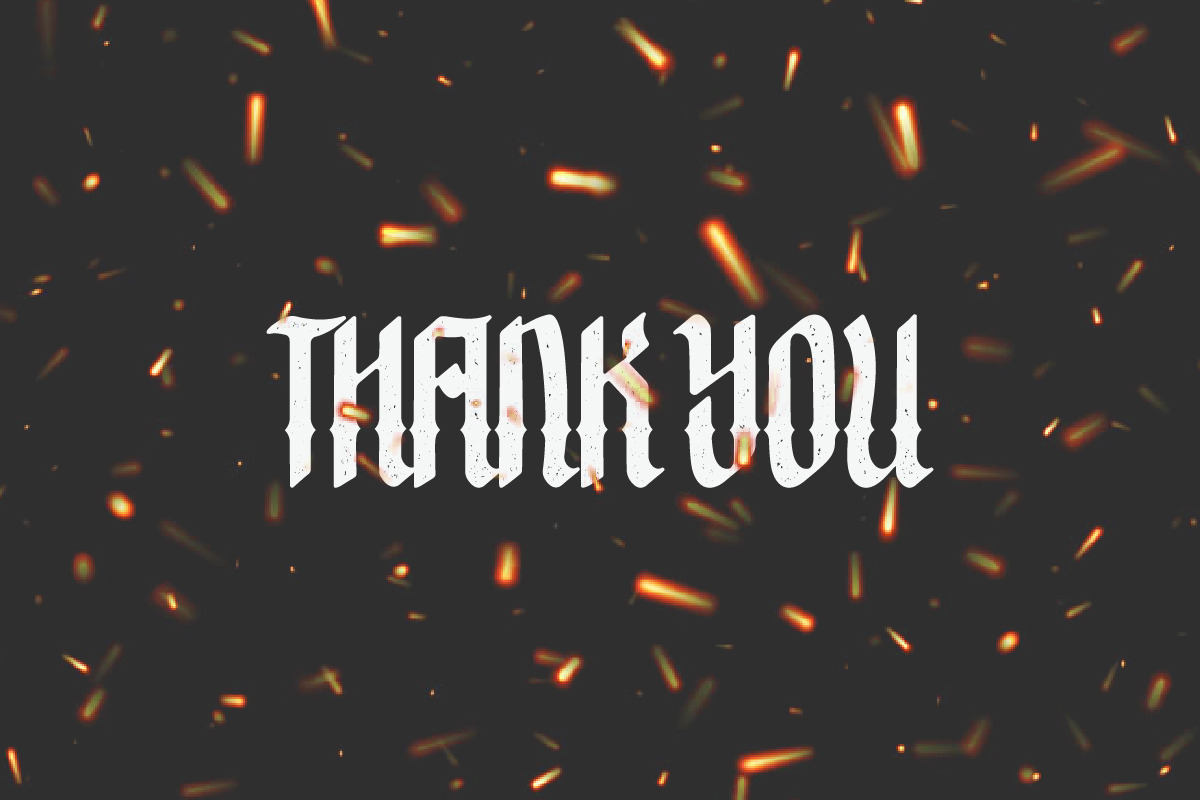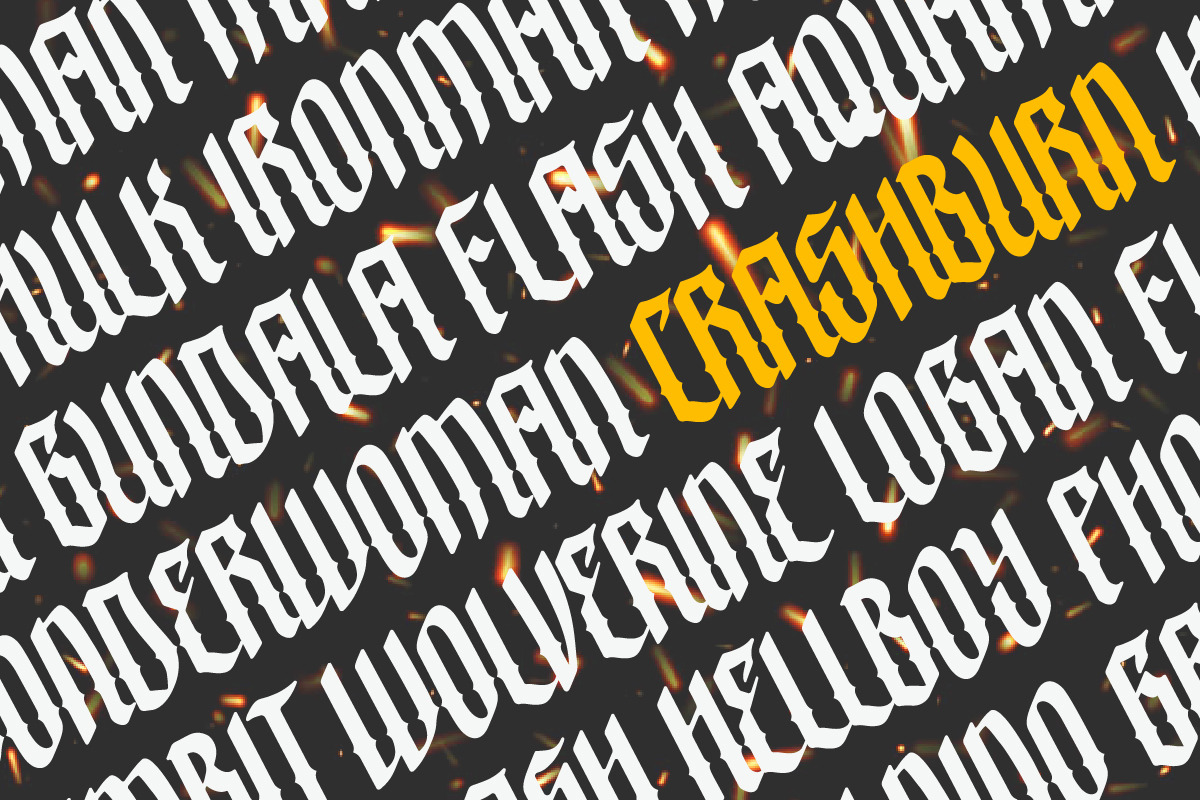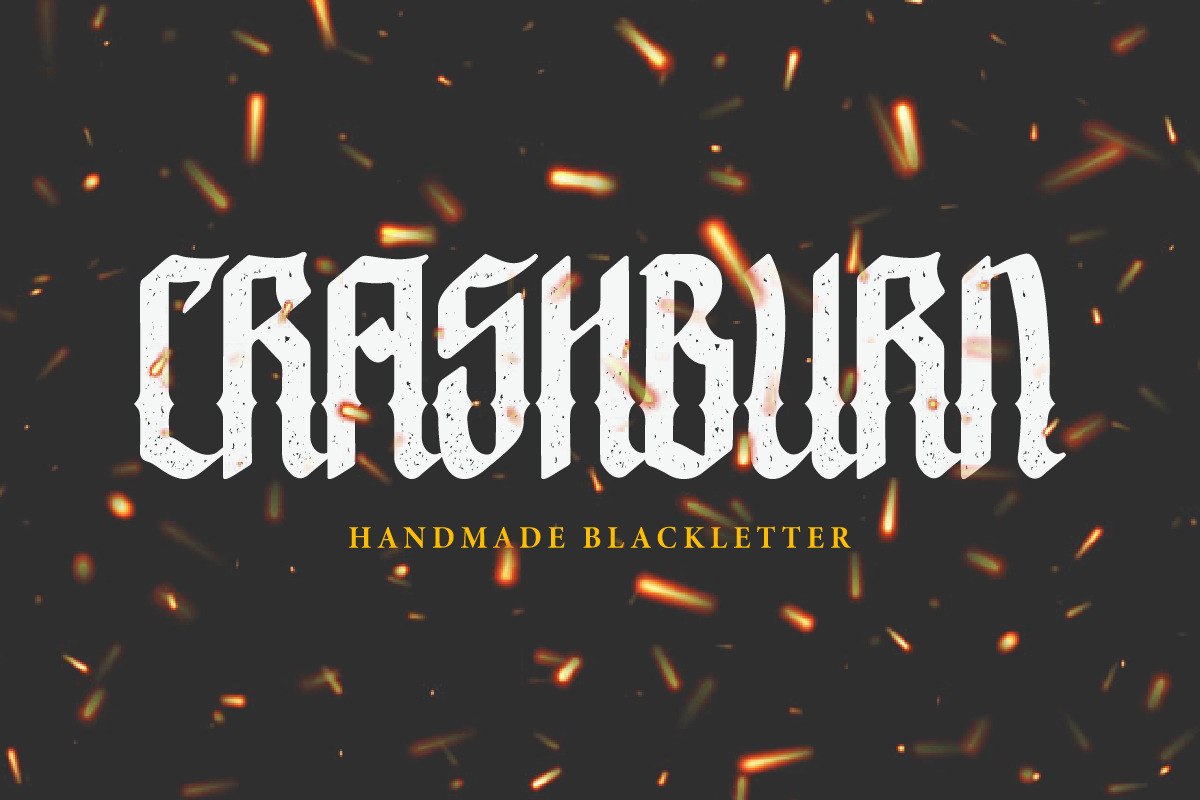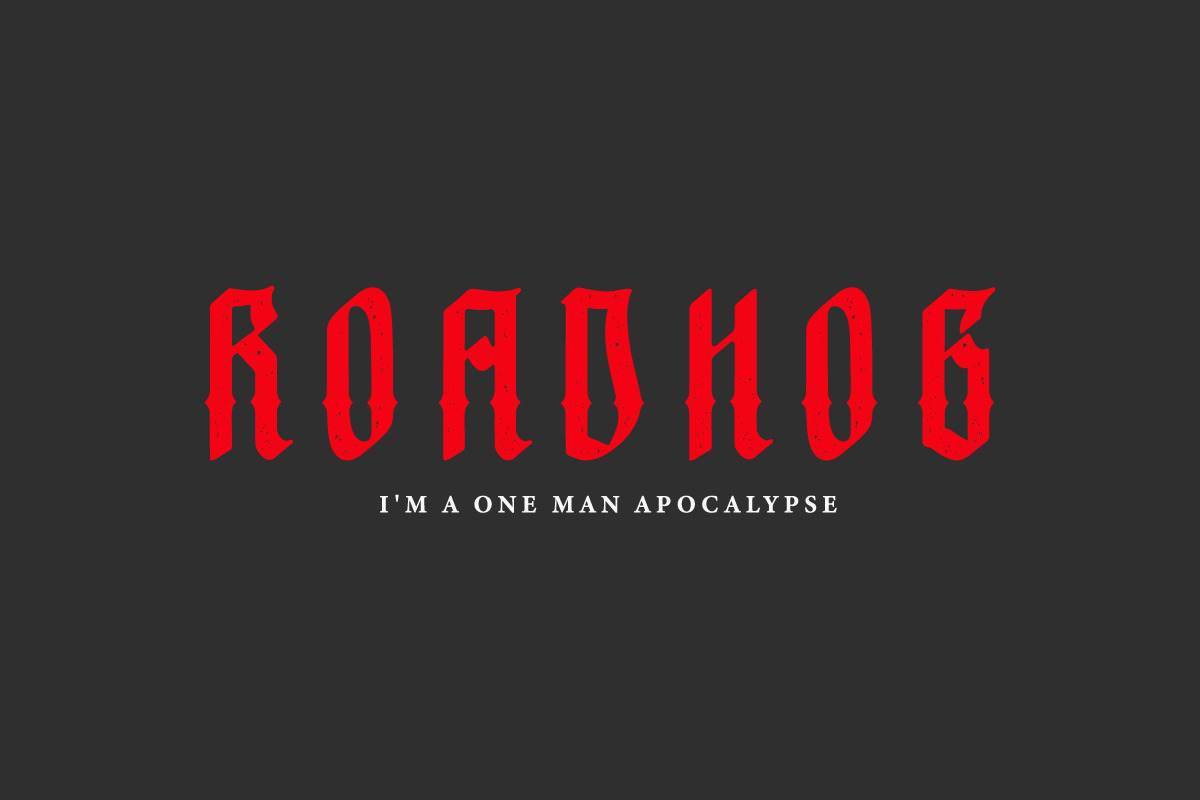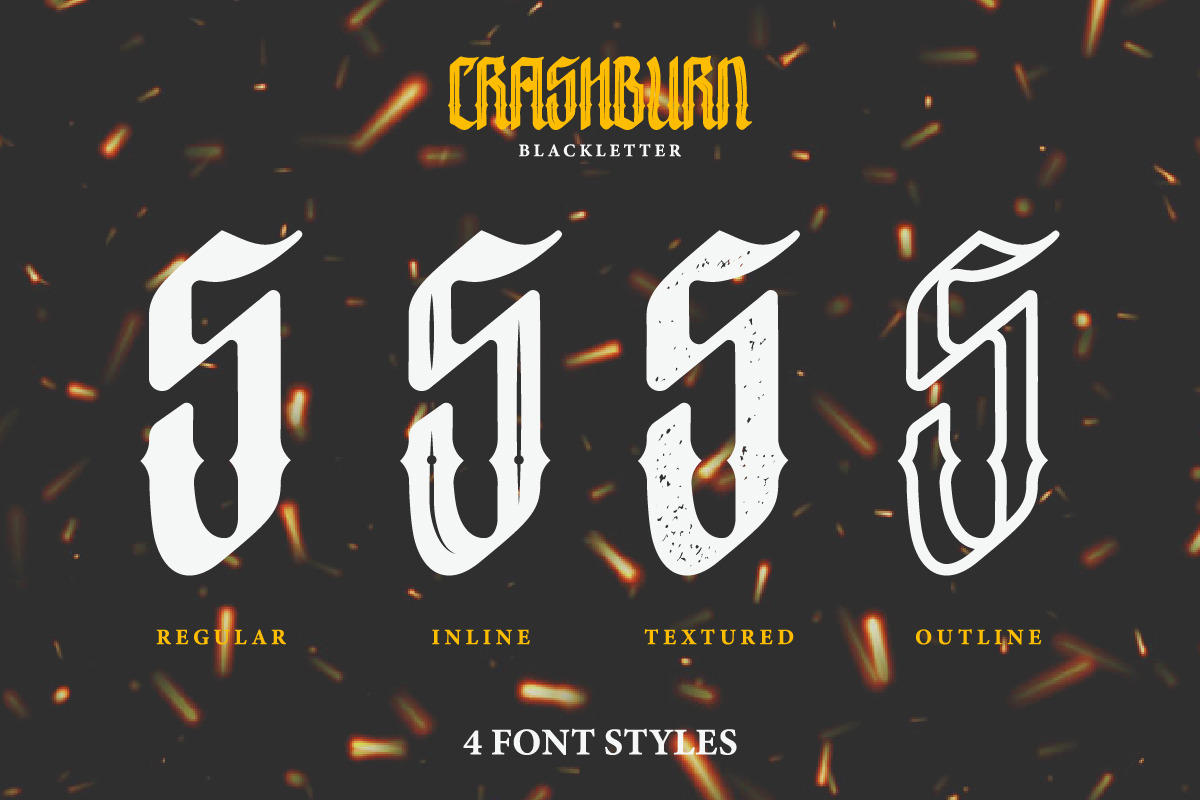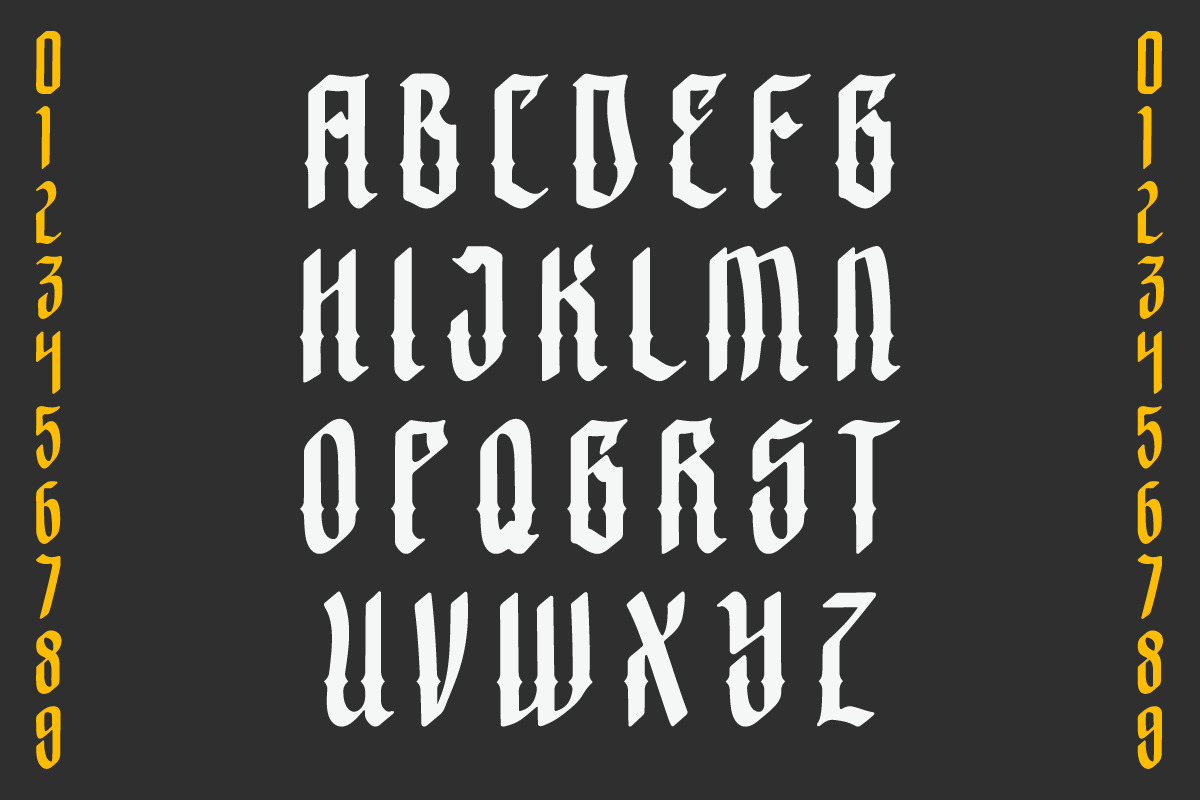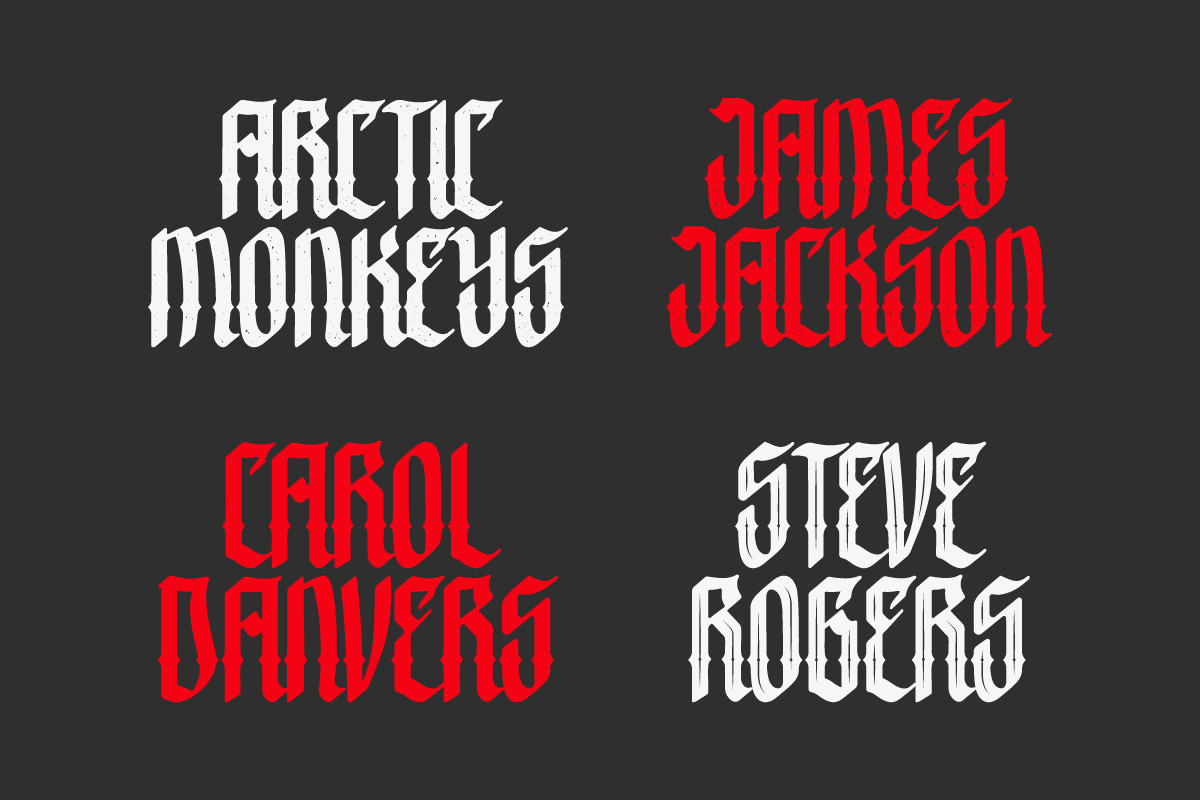
Crashburn | Blackletter Font
Introducing a new product called Crashburn. A Blackletter that has 4 different styles ; Clean, Textured, Inline and Outline. Would be awesome for your merchandise design, streetwear, t-shirt, logo, typography design, poster, packaging, branding or anything else that can make your product looks awesome.
Crashburn features :
- Uppercase and Lowercase are the same
- Number & Punctuation